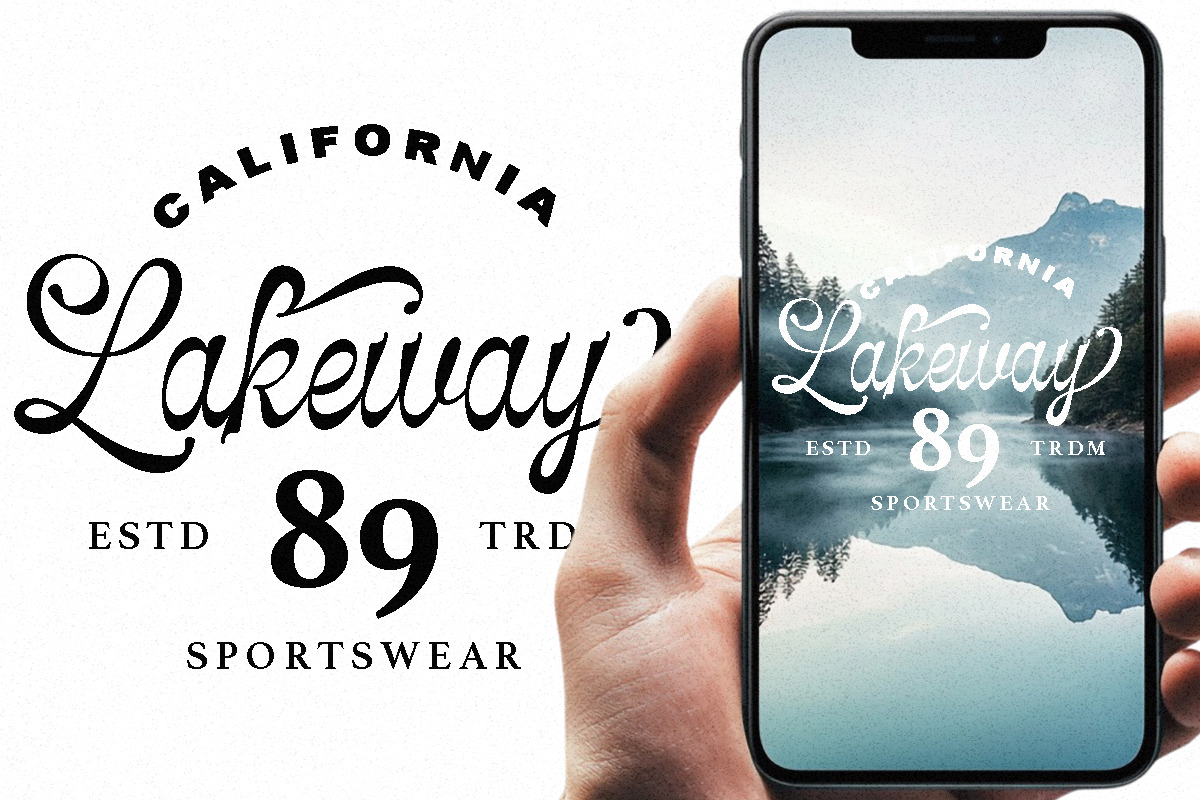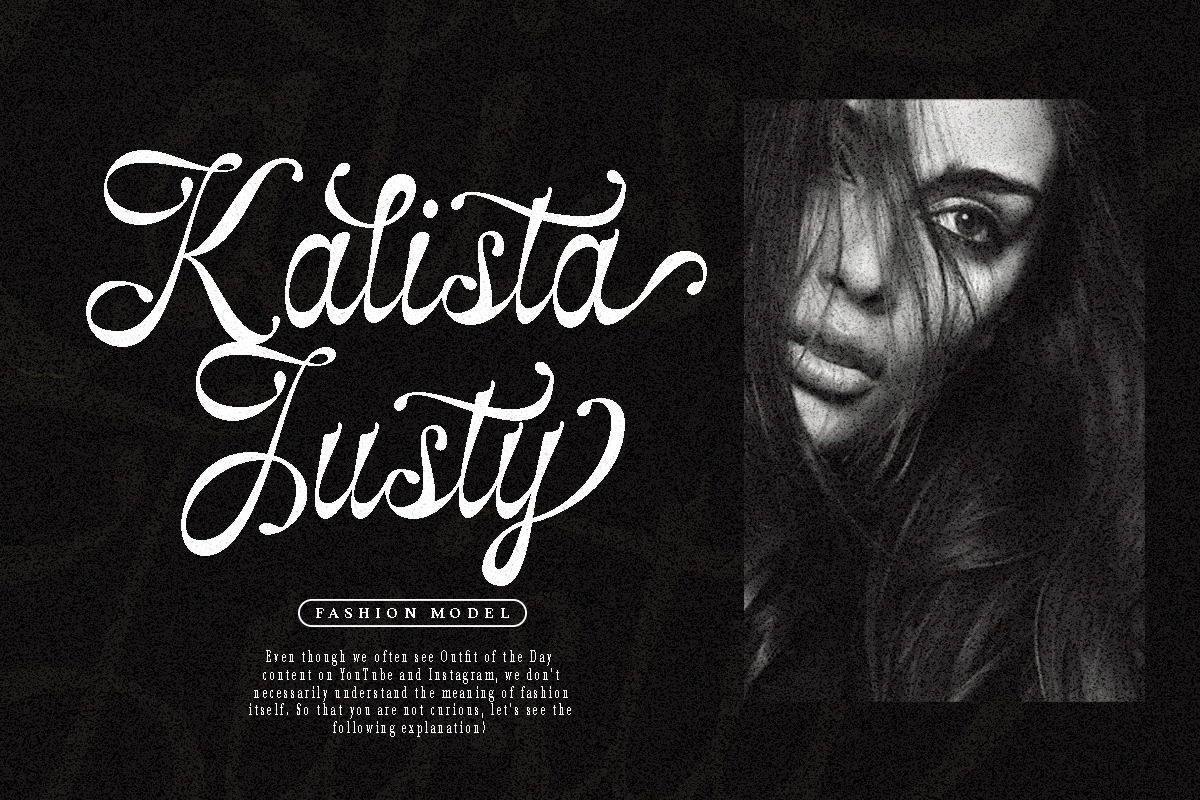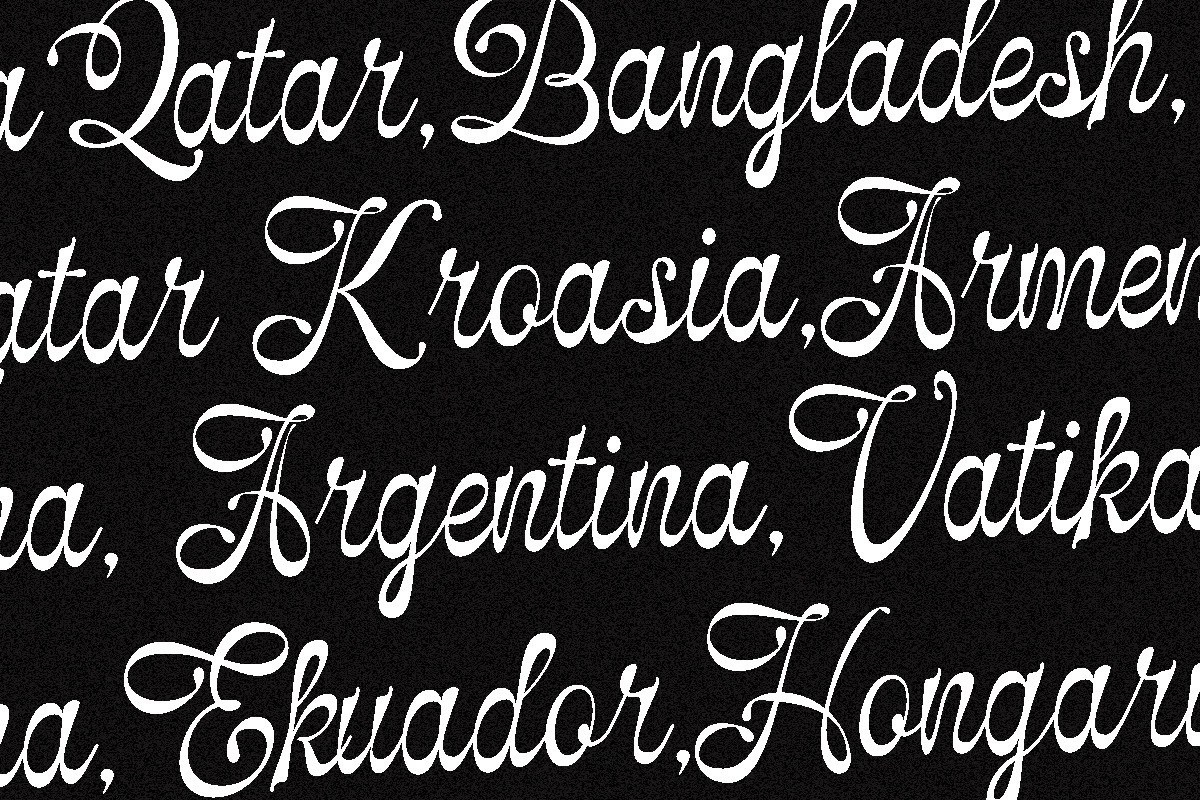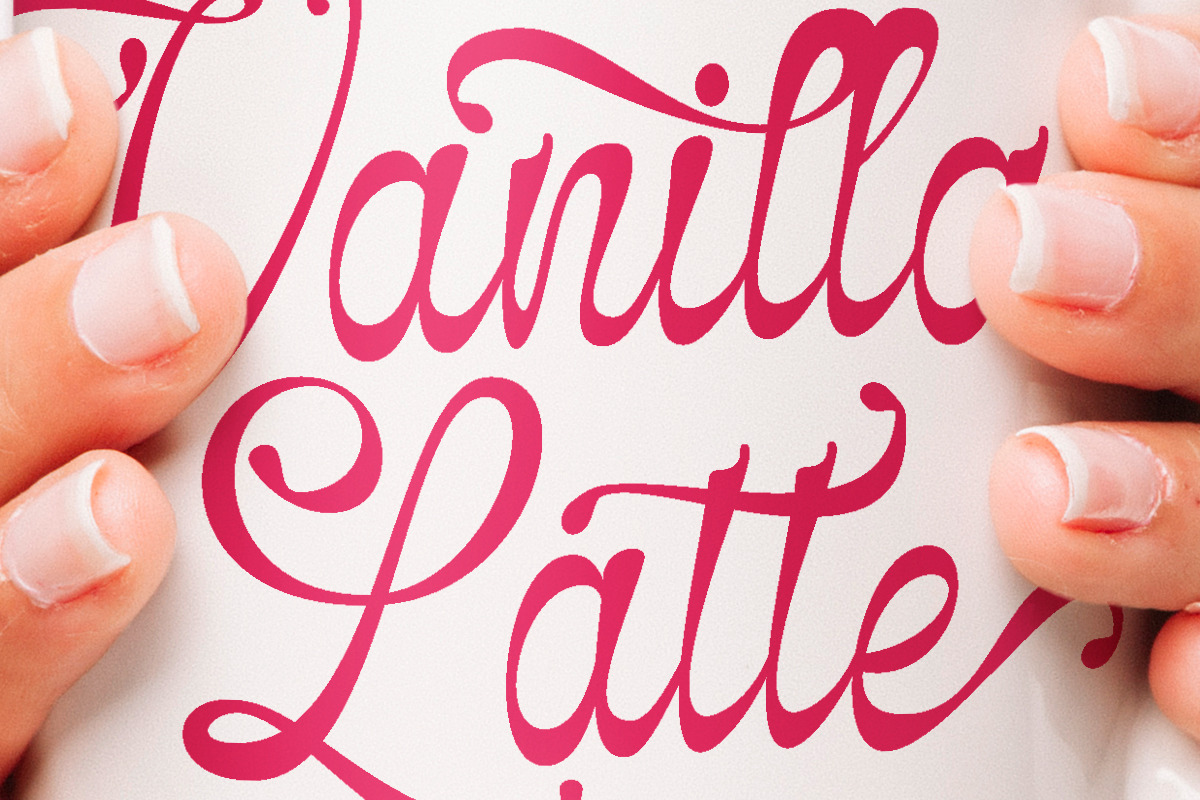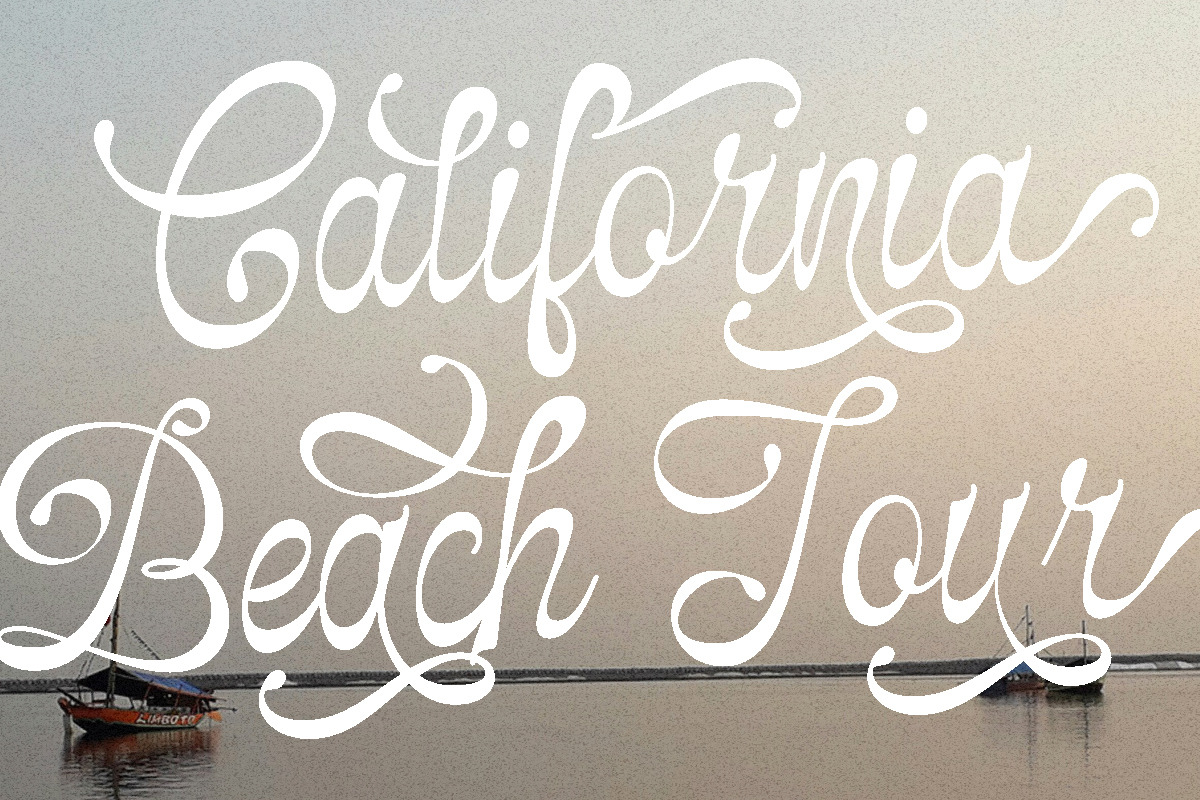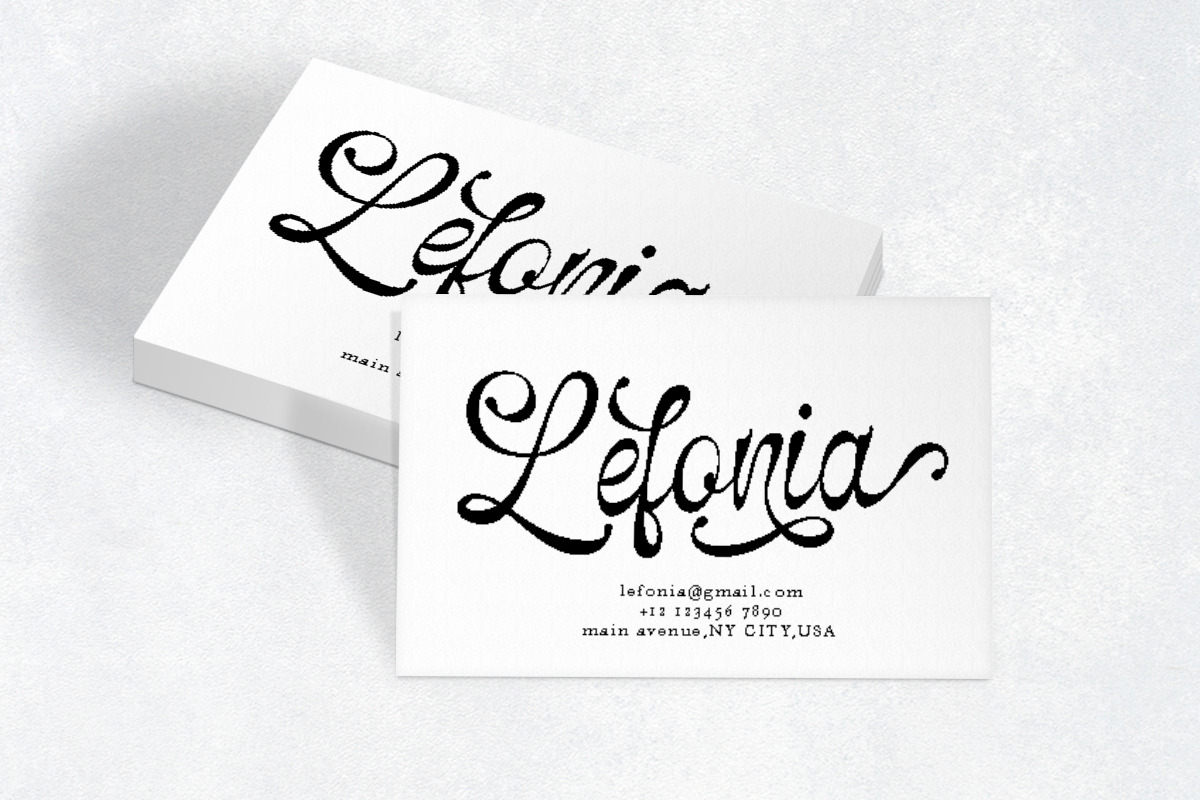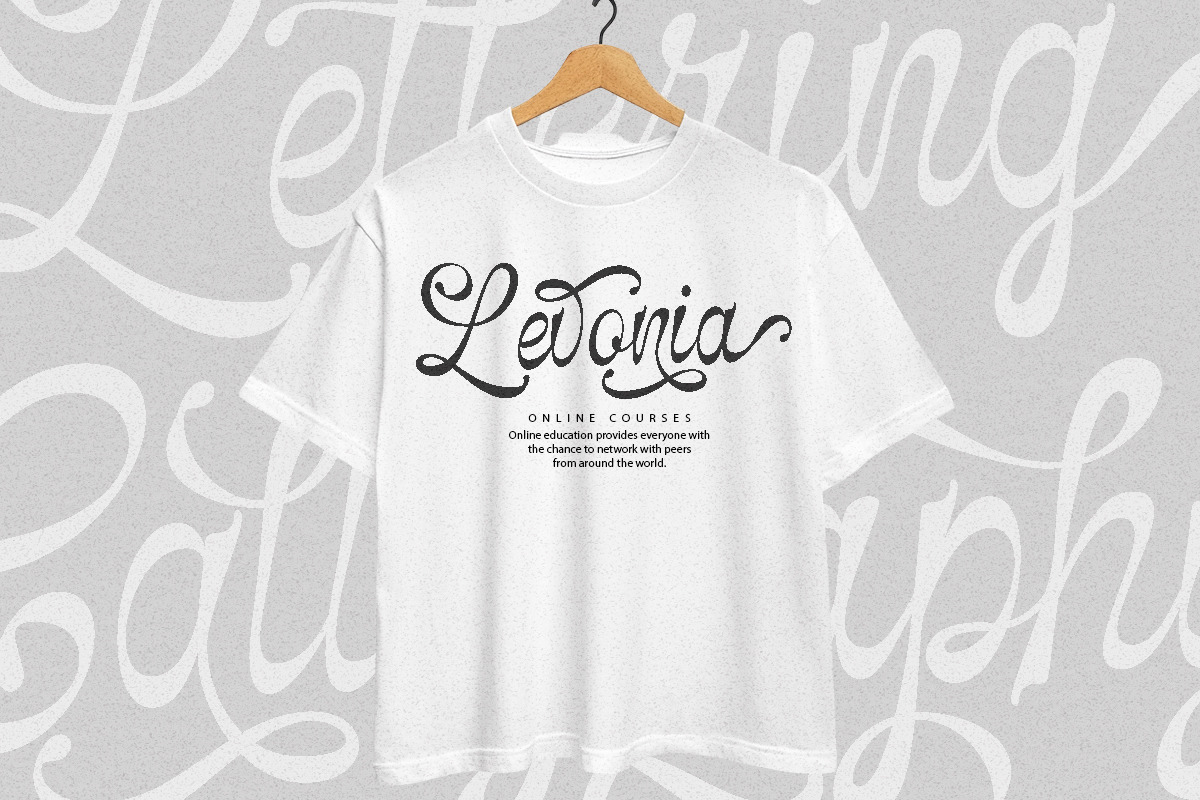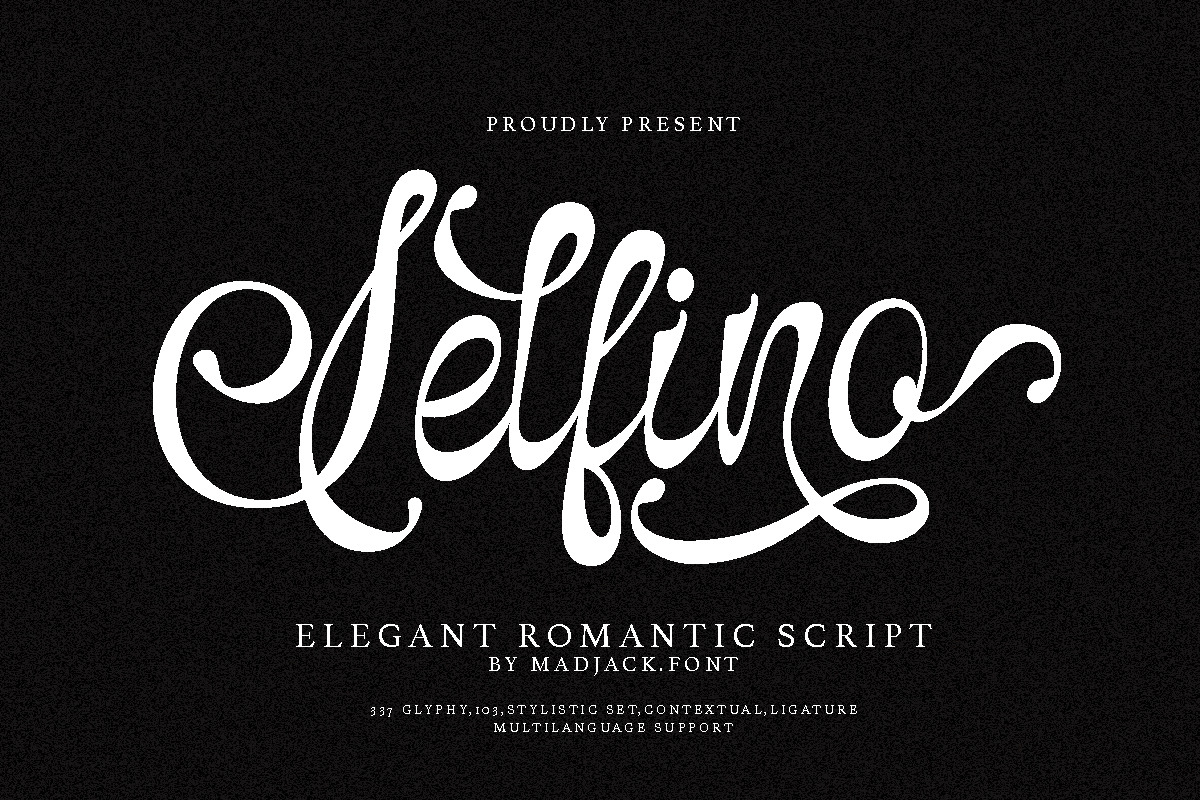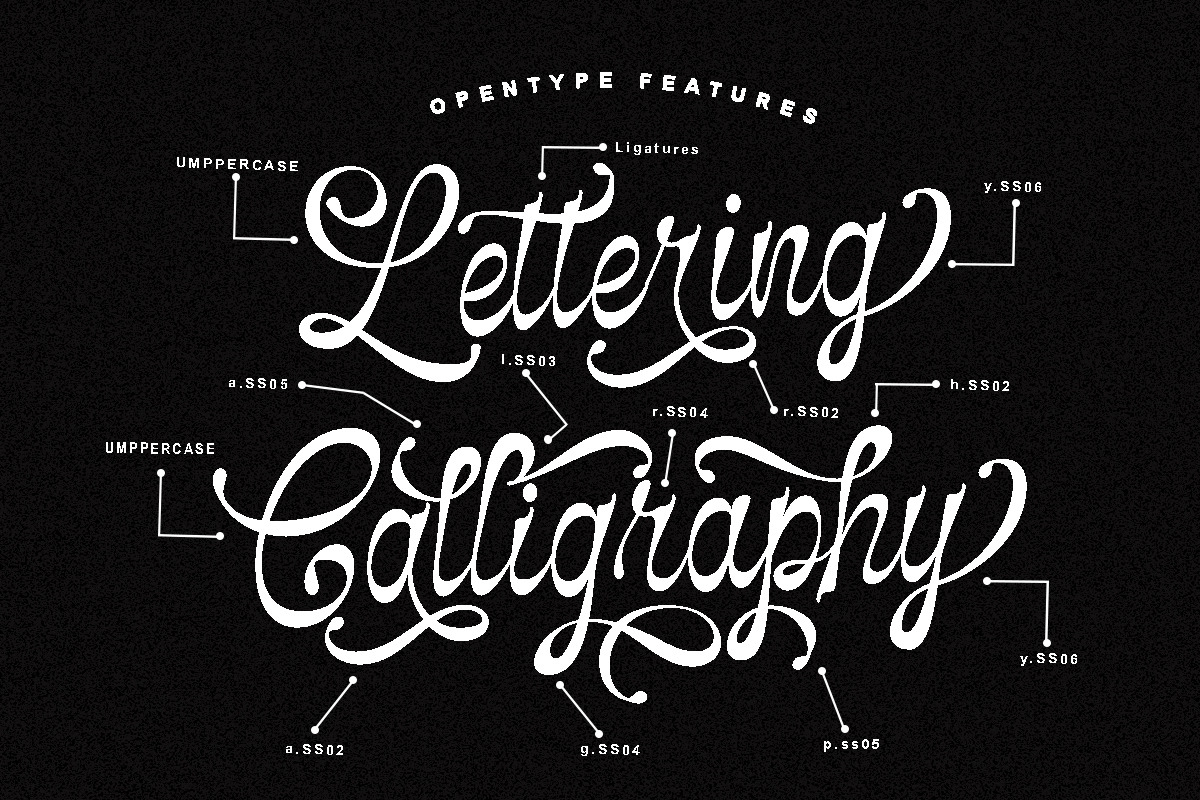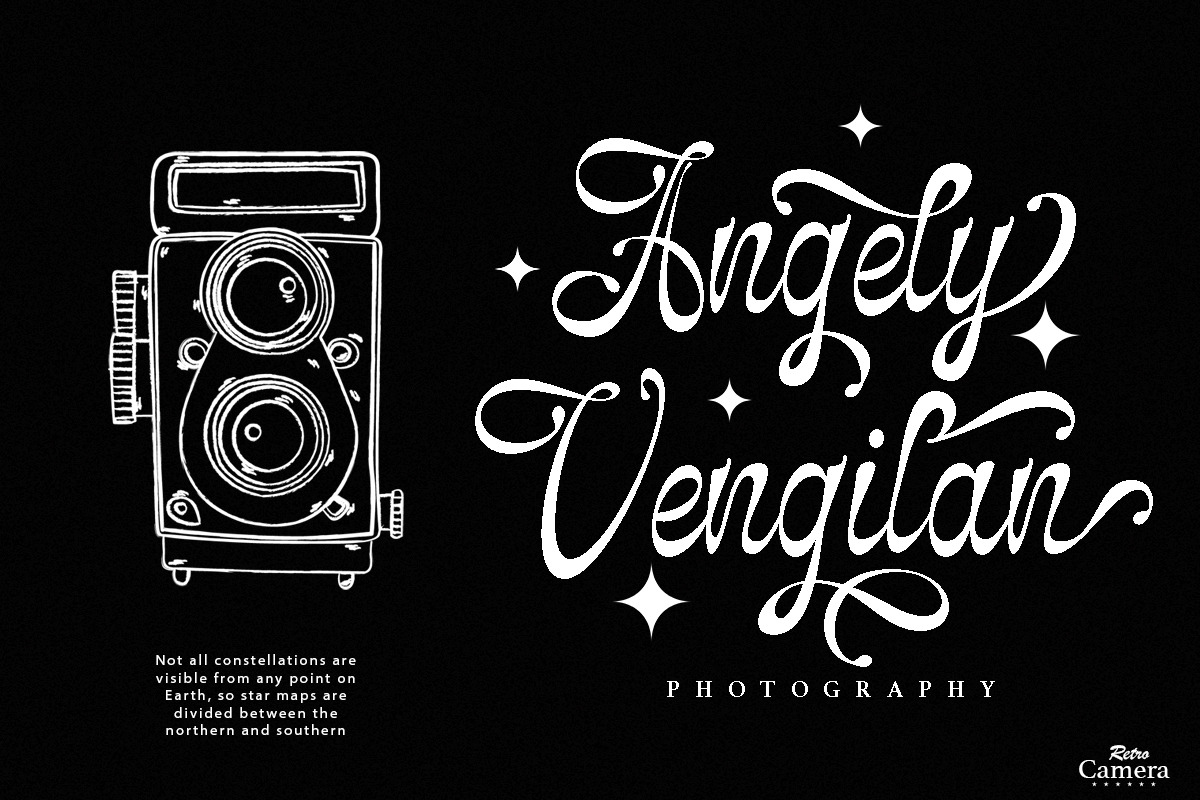
Selfino Script
Selfino Script is a modern script font that features a classic and elegant touch.
Selfino Script is appealing because it is sleek, clean, feminine, sensual, glamorous, simple, and very readable, thanks to its many luxurious letter connections. I also offer a number of decent style alternatives for some of the letters. The classic style is perfect for use in various formal forms such as invitations, labels, restaurant menus, logos, fashion, makeup, stationery, novels, magazines, books, greeting/wedding cards, packaging, labels, or any type of advertising purposes. . . . . . . .